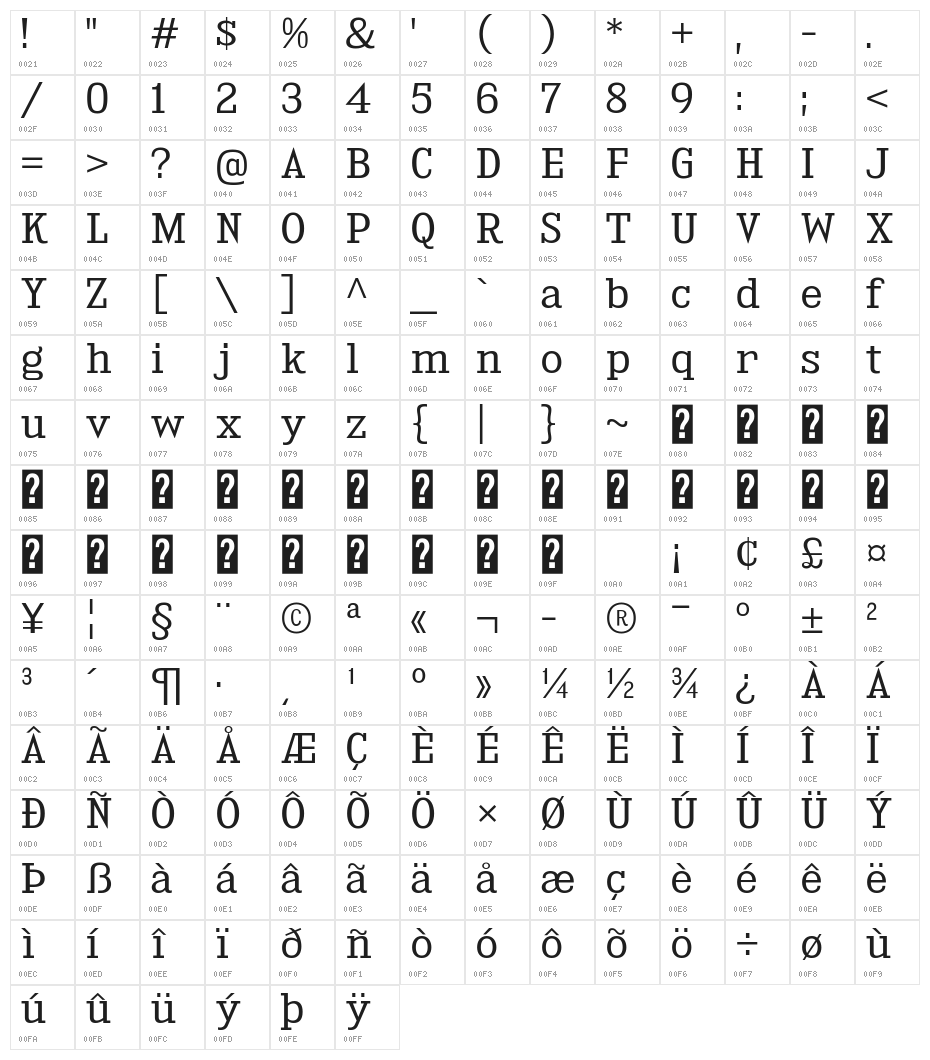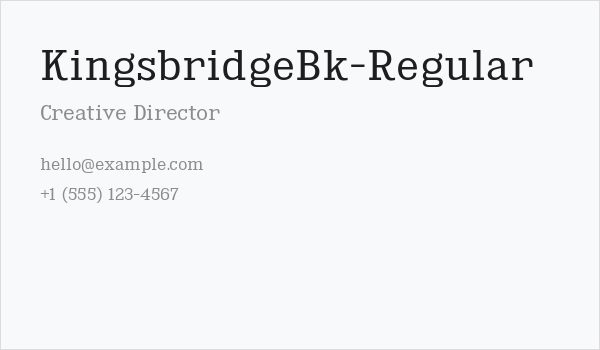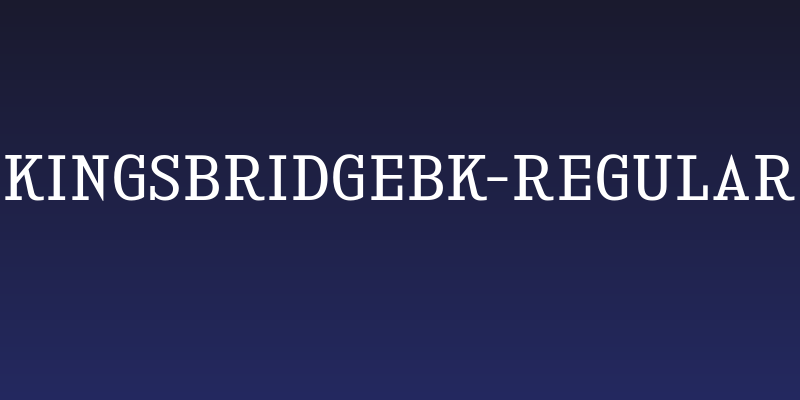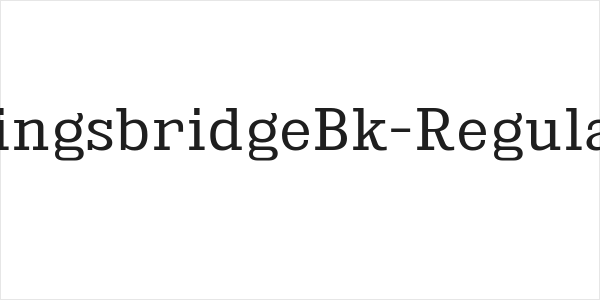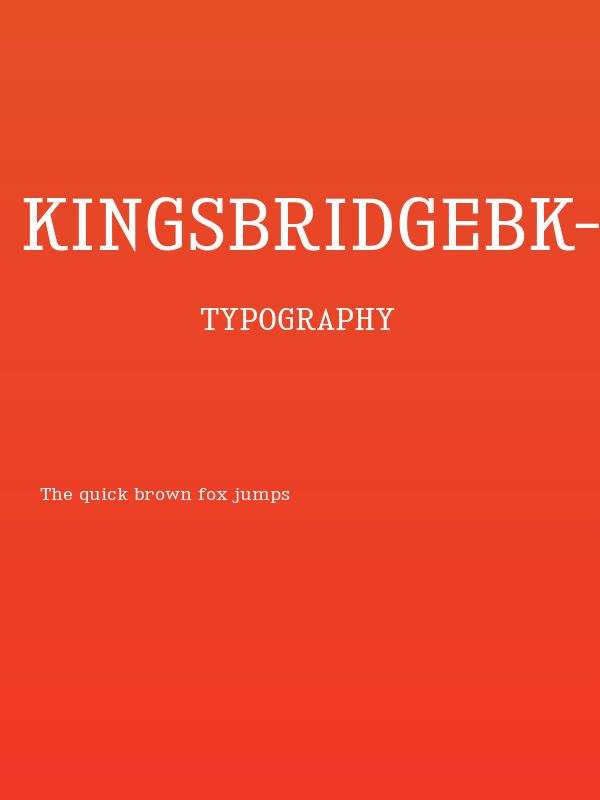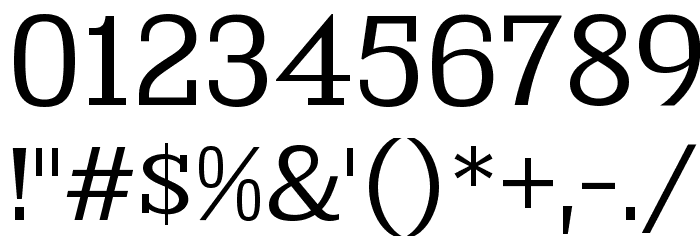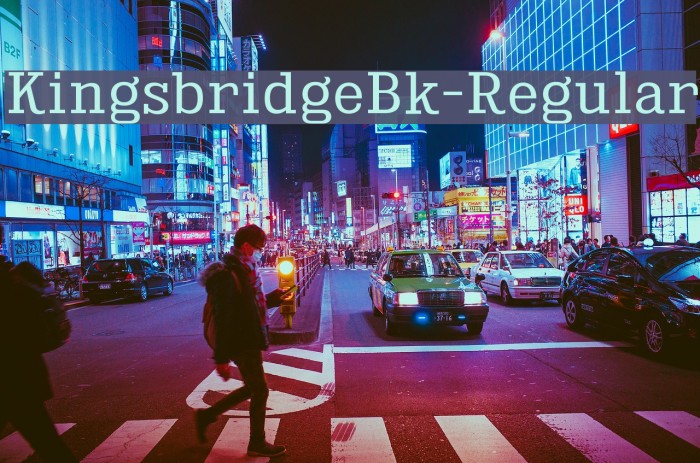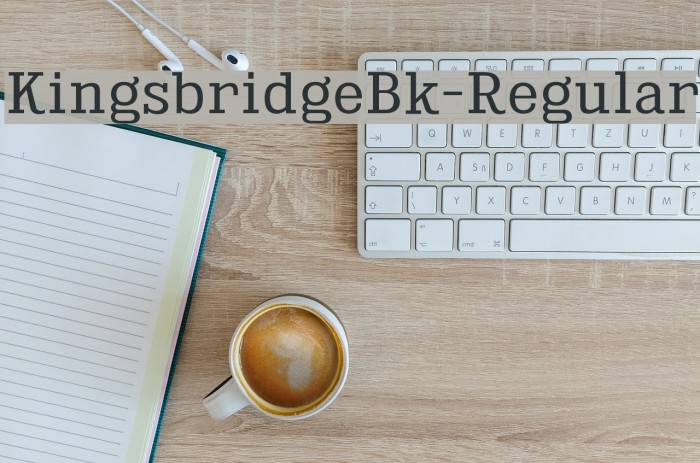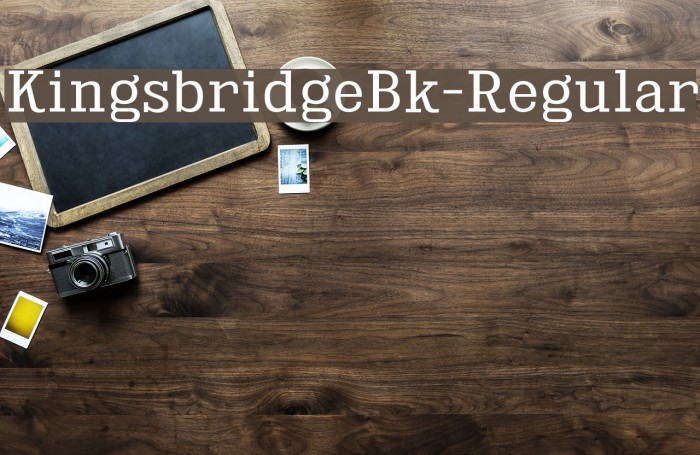
KingsbridgeBk-Regular Font
KingsbridgeBk-Regular Description
This font features a classic serif style with a strong presence and a traditional feel. The characters are well-defined with clear, sharp serifs that add a touch of elegance and formality. The uppercase letters are bold and commanding, while the lowercase letters maintain a consistent style with slightly rounded edges that soften the overall appearance. The numerals are proportionate and align well with the alphabet, ensuring readability. Special characters are included, complementing the font's versatility. The overall design is balanced, making it suitable for a variety of uses.
| Overall Style | Classic |
| Use Case | Headlines, Body text, Logos |
| Proposed Projects | Ideal for editorial design, book covers, formal invitations, and branding projects that require a touch of sophistication. |